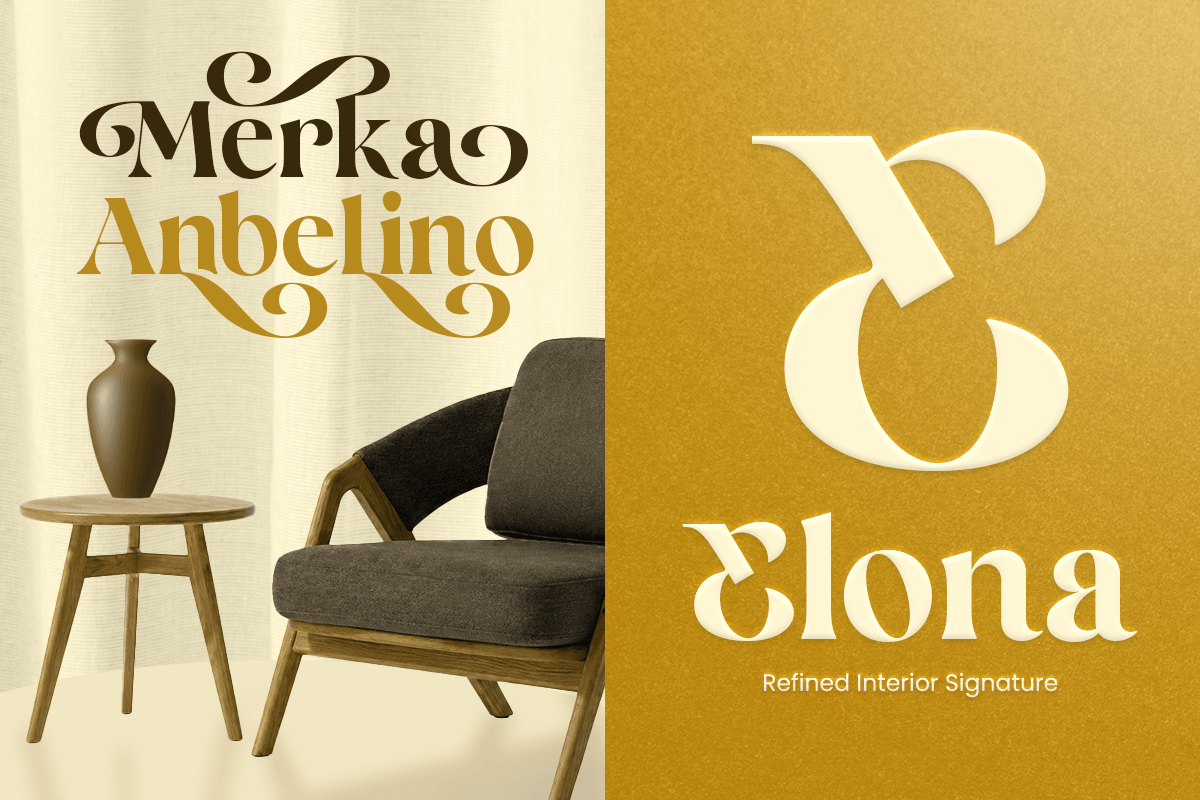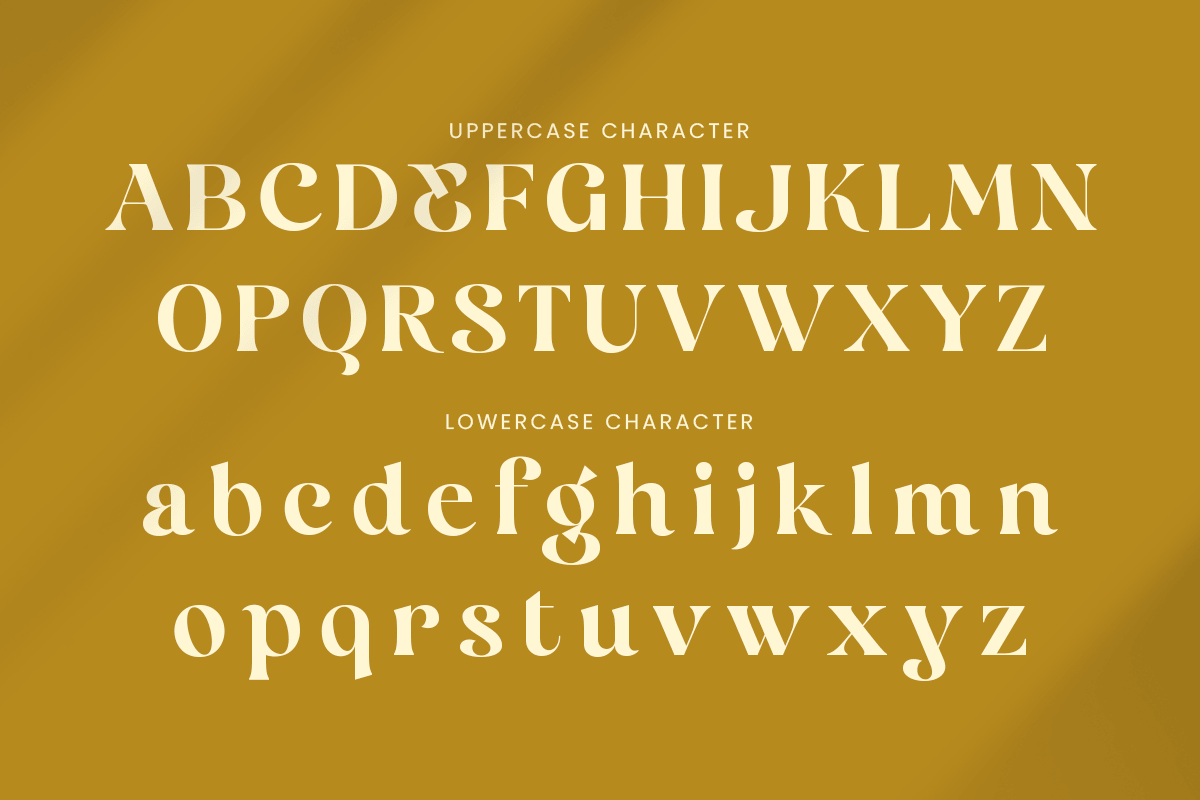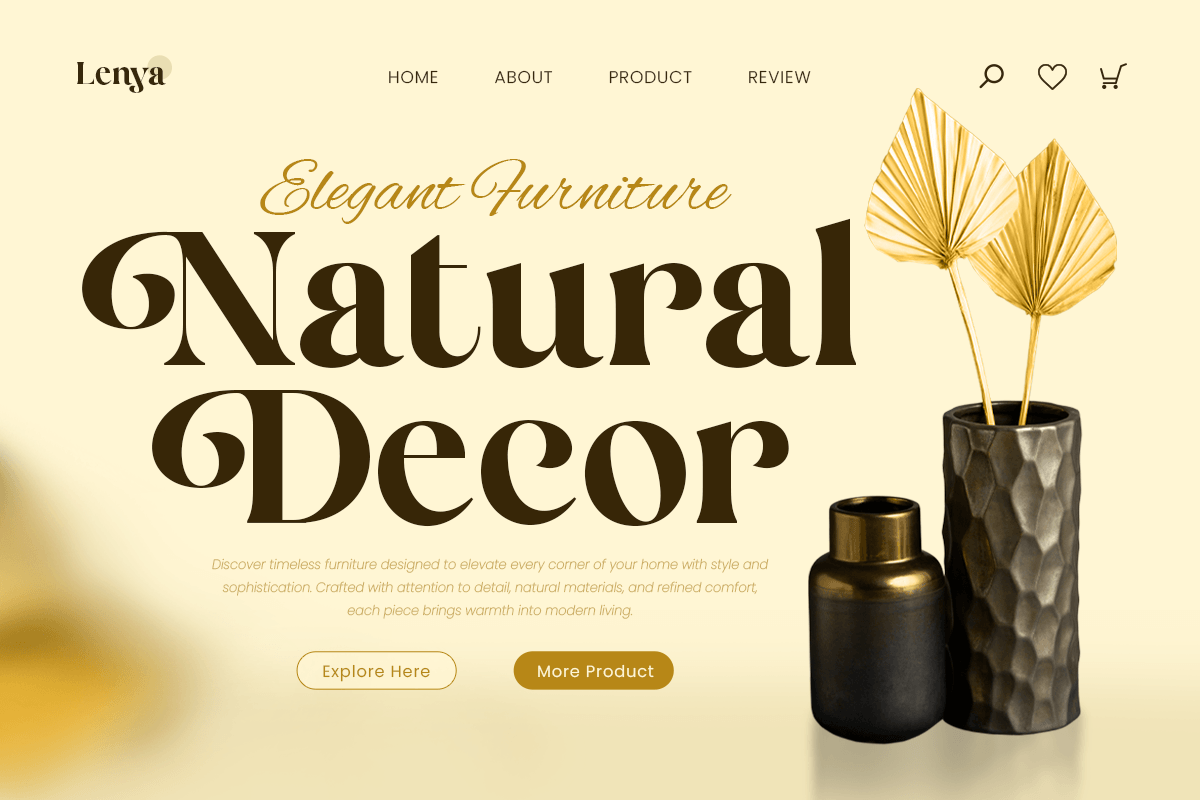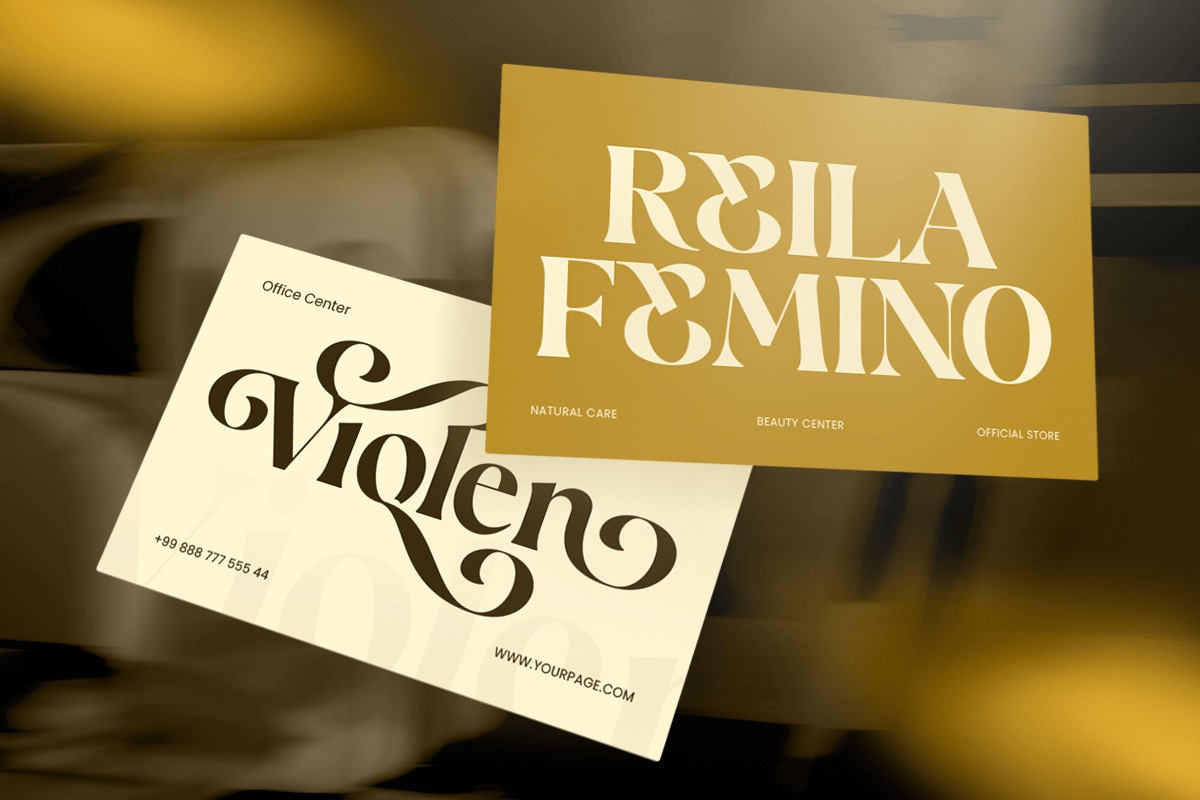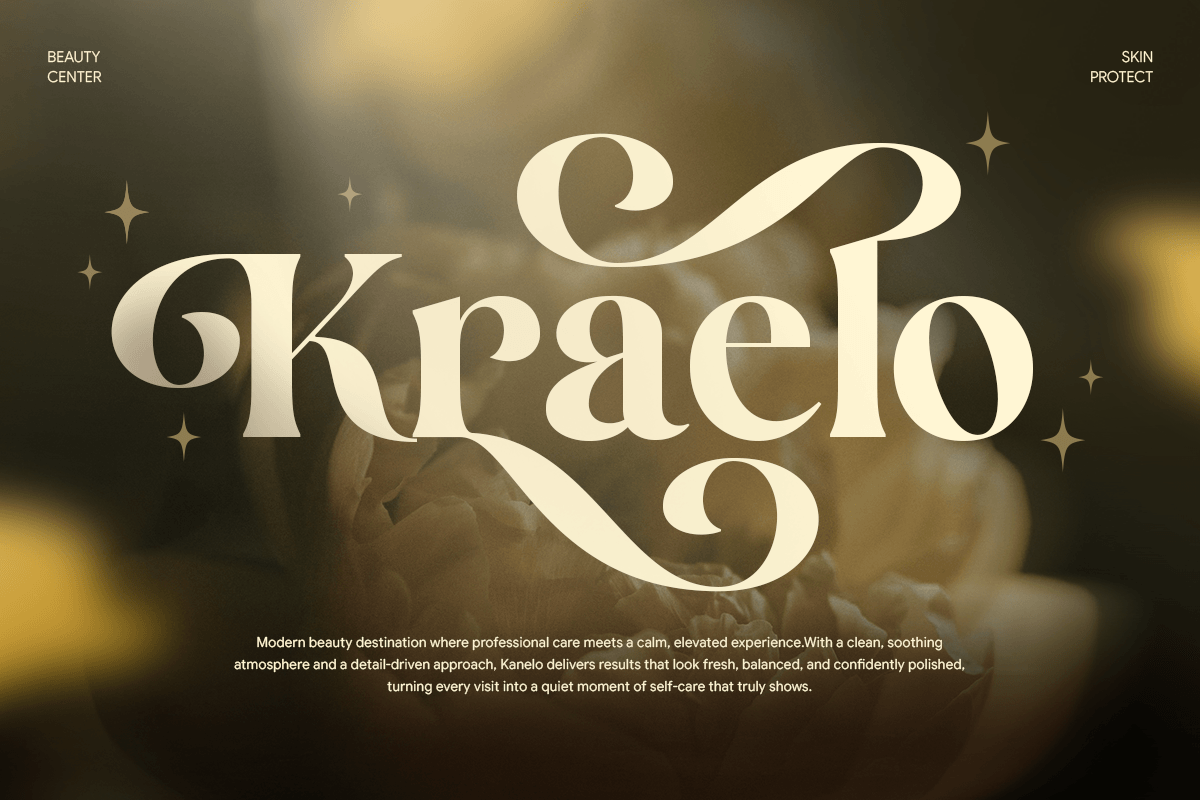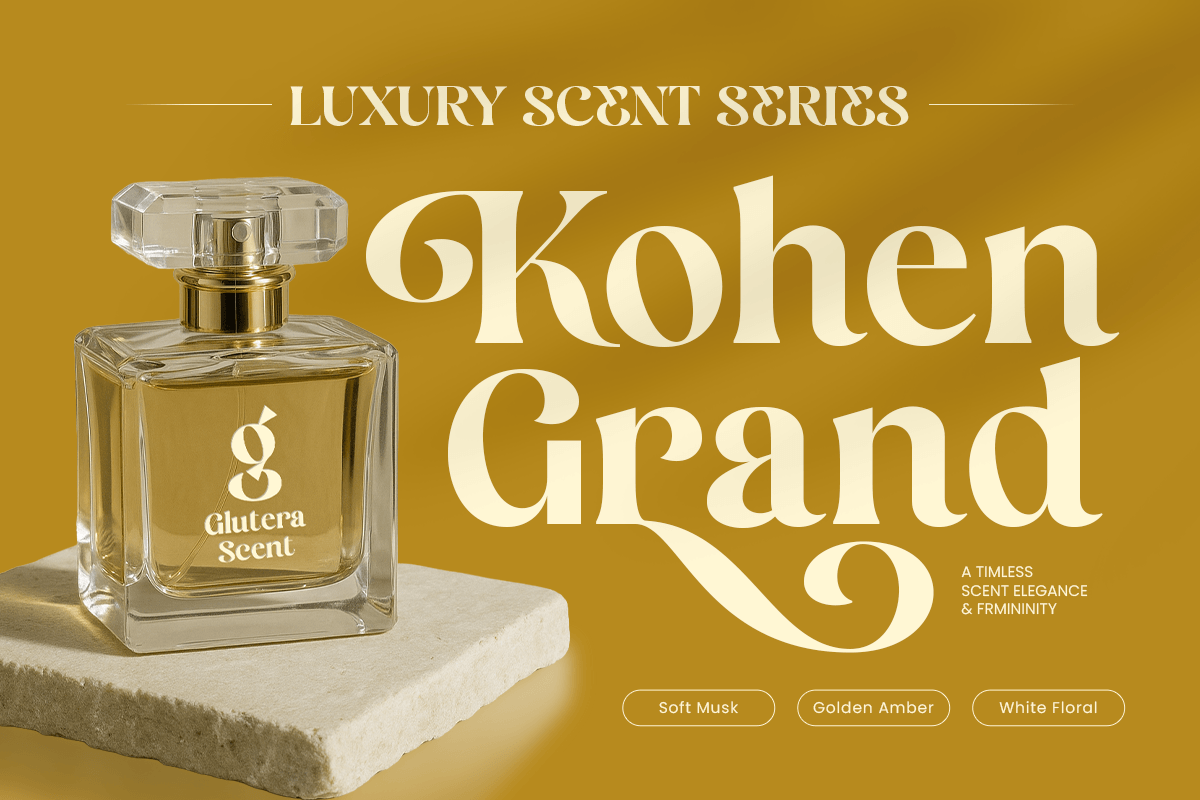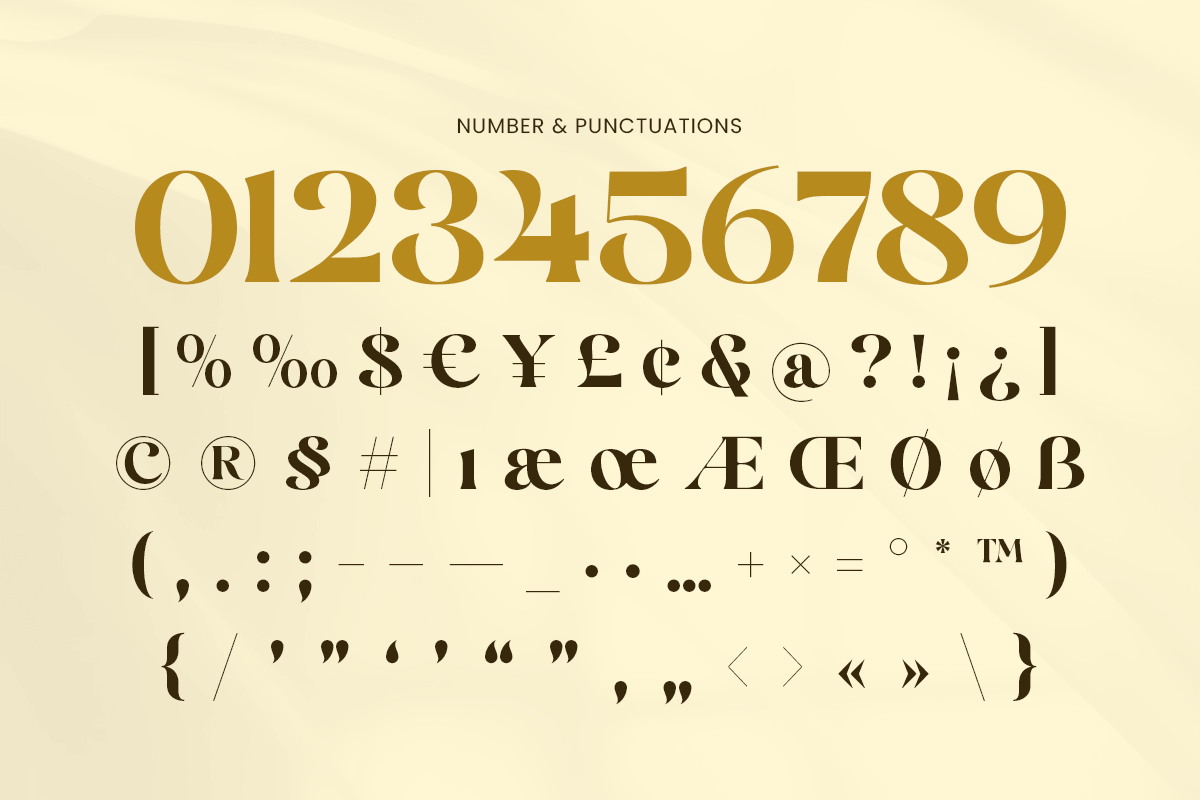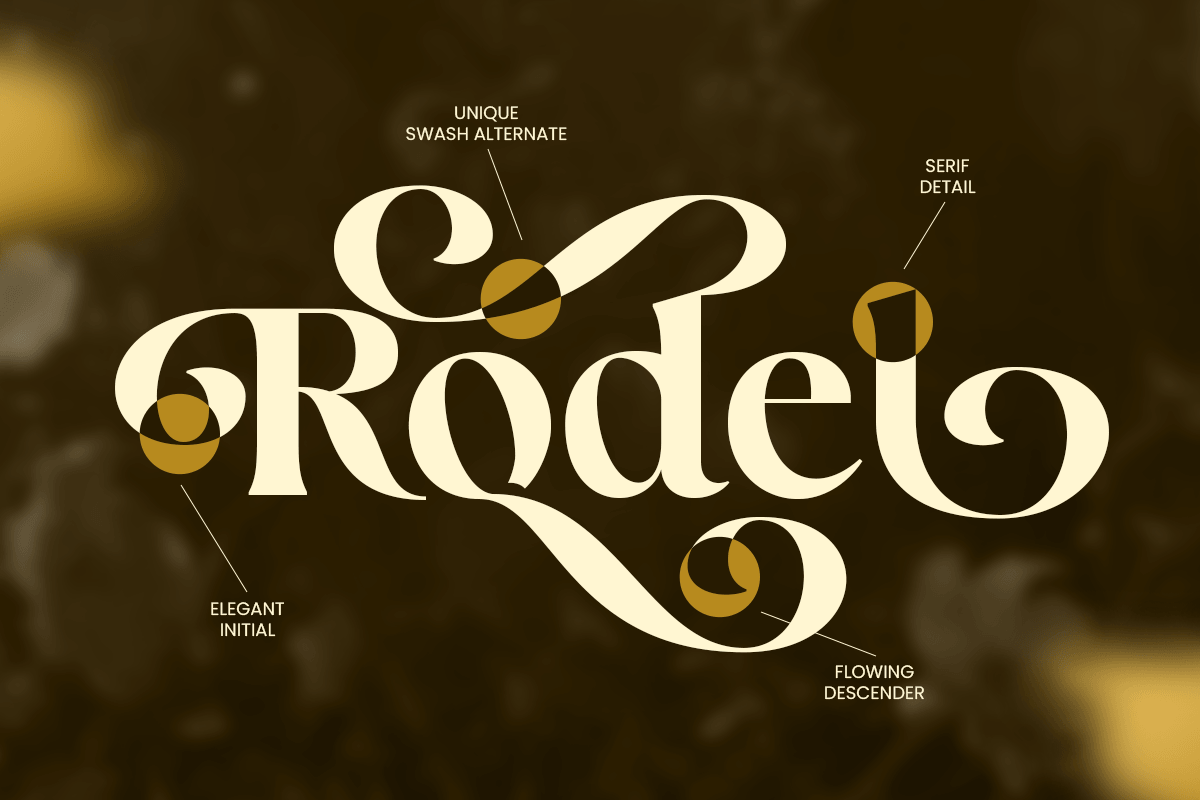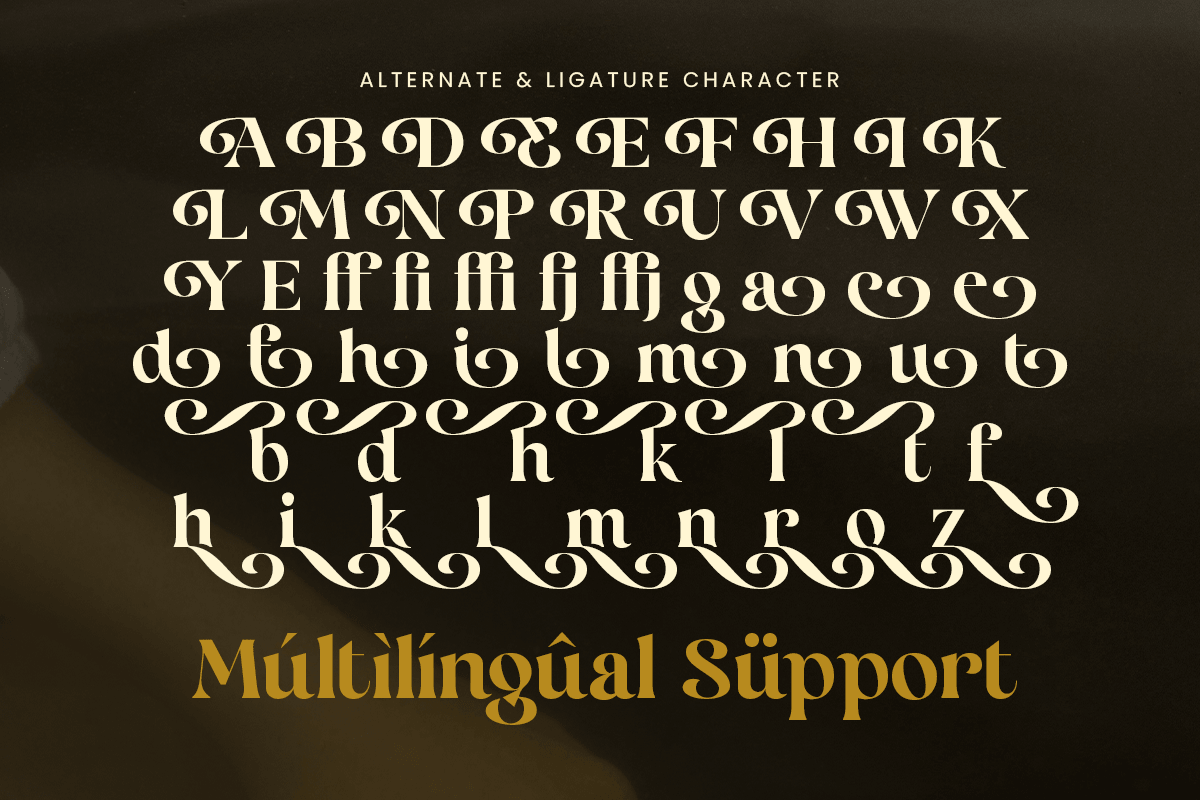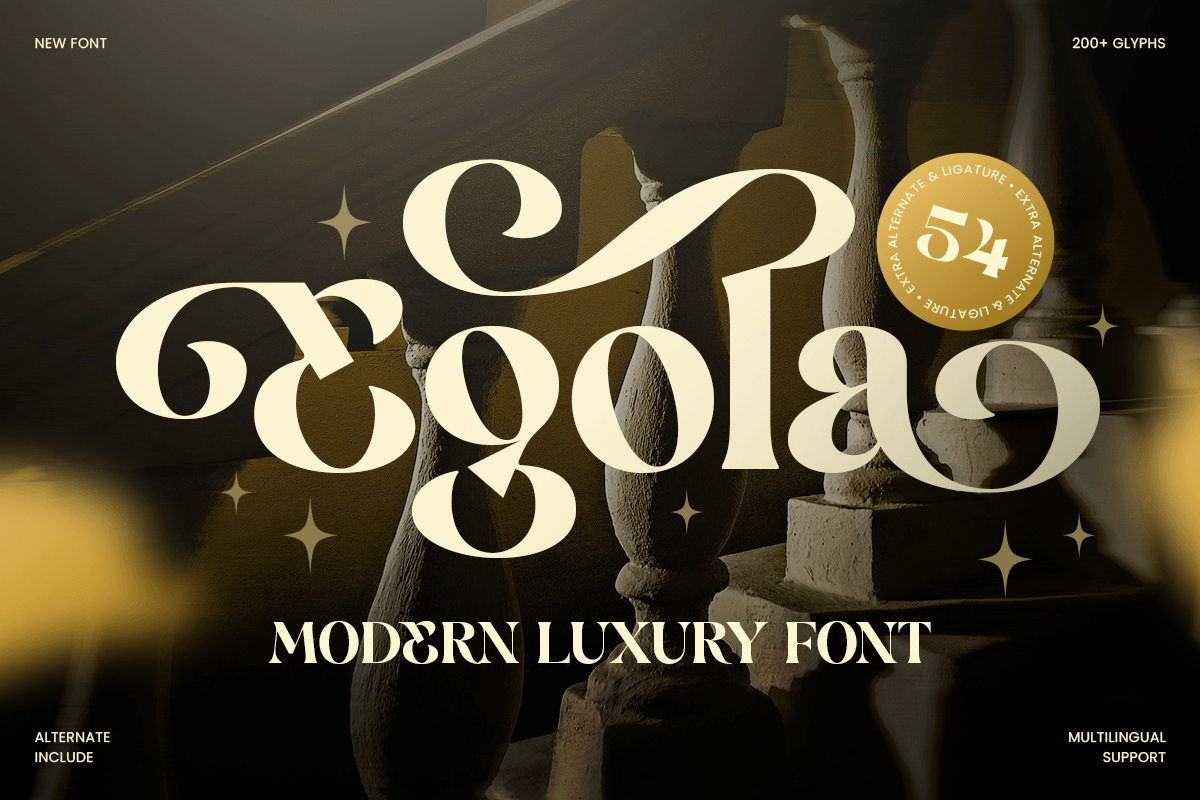
Egola - Elegant Luxury Font
Egola is a modern luxury font designed to bring elegance, sophistication, and contemporary style to your creative projects. With refined letterforms, balanced proportions, and a premium visual aesthetic, this typeface is perfect for luxury branding, elegant logos, fashion editorials, packaging, and high-end design applications.
Crafted for designers who seek a modern yet timeless typographic style, Egola combines minimalist elegance with a luxurious presence. Its clean structure and graceful details create a polished identity that works beautifully across brand marks, magazine titles, invitations, product labels, and digital visuals.
Whether used for fashion brands, beauty products, boutique identities, or premium marketing materials, Egola delivers a sophisticated and memorable impression across both print and digital media.
Egola – Modern Luxury Font Features
Modern luxury design with elegant visual character
Perfect for branding, logos, packaging, editorials, and premium projects
Refined letterforms with clean and sophisticated proportions
Ideal for fashion, beauty, lifestyle, wedding, and boutique brands
Uppercase, lowercase, numerals, and punctuation included
OpenType features for enhanced typographic styling
Multilingual support for Afrikaans, Albanian, Asu, Basque, Bemba, Bena, Breton, Chiga, Cornish, Dutch, English, Estonian, Filipino, Finnish, Friulian, Galician, German, Gusii, Indonesian, Irish, Italian, Kabuverdianu, Kalenjin, Kinyarwanda, Luo, Luxembourgish, Luyia, Machame, Makhuwa-Meetto, Makonde, Malagasy, Manx, Morisyen, North Ndebele, Nyankole, Oromo, Portuguese, Quechua, Romansh, Rombo, Rundi, Rwa, Samburu, Sango, Sangu, Scottish Gaelic, Sena, Shambala, Shona, Soga, Somali, Spanish, Swahili, Swedish, Swiss, and more.
Create a refined modern identity with Egola – the ultimate luxury font for elegant branding, premium logos, and sophisticated design. ✨